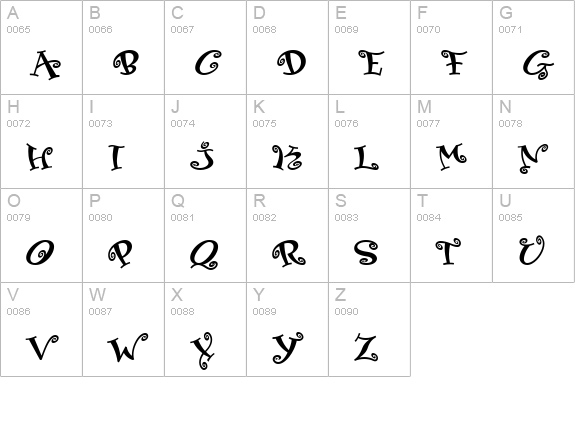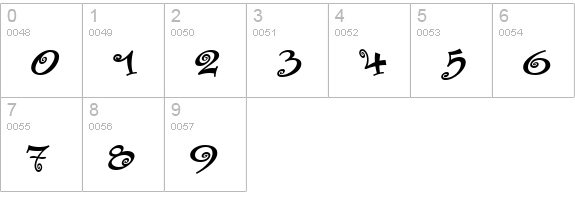
Swinger Medium Font Details
Swinger Medium is a balanced, medium-weight variant in the Swinger typeface family \xE2\x80\x94 well suited to sub-headlines, navigation, and balanced editorial work.
Swinger Medium font exudes a perfect balance of elegance and modernity, making it the ideal choice for a wide range of design projects. With its sleek lines and stylish curves, this versatile typeface adds a touch of sophistication to any creative endeavor. Whether you are working on a branding project, editorial design, or web graphics, Swinger Medium font is sure to elevate your work to new heights. What's even better is that this stunning font is available for free download at FontsMarket.com. That's right, you can easily access this premium typeface without any cost, making it a valuable addition to your font library. Don't miss out on the opportunity to enhance your designs with the timeless appeal of Swinger Medium font. Download it now and let your creativity shine!